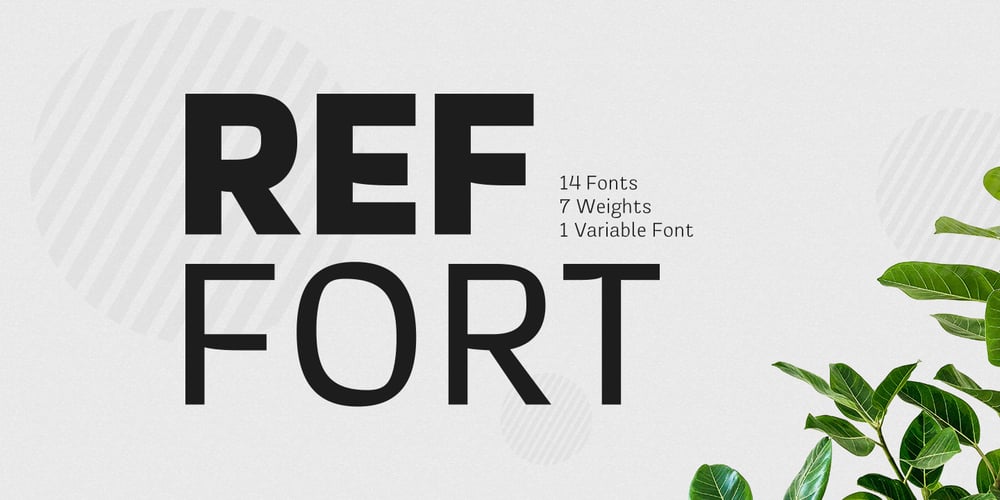
Reffort Font Family was designed by Arwan Sutanto and published by Locomotype. Reffort contains 14 styles and family package options. Reffort is a new sans serif with a slightly different look as its signature. Customization in certain parts of the letters allows visual changes to look more captivating.This font comes in regular style and its matching italic as well as two variable version. Each version has 7 different weights. Perfect for graphic design and any display use, Reffort can easily work for packaging design, web, signage, advertising, logotypes, even for long paragraphs like editorial design.